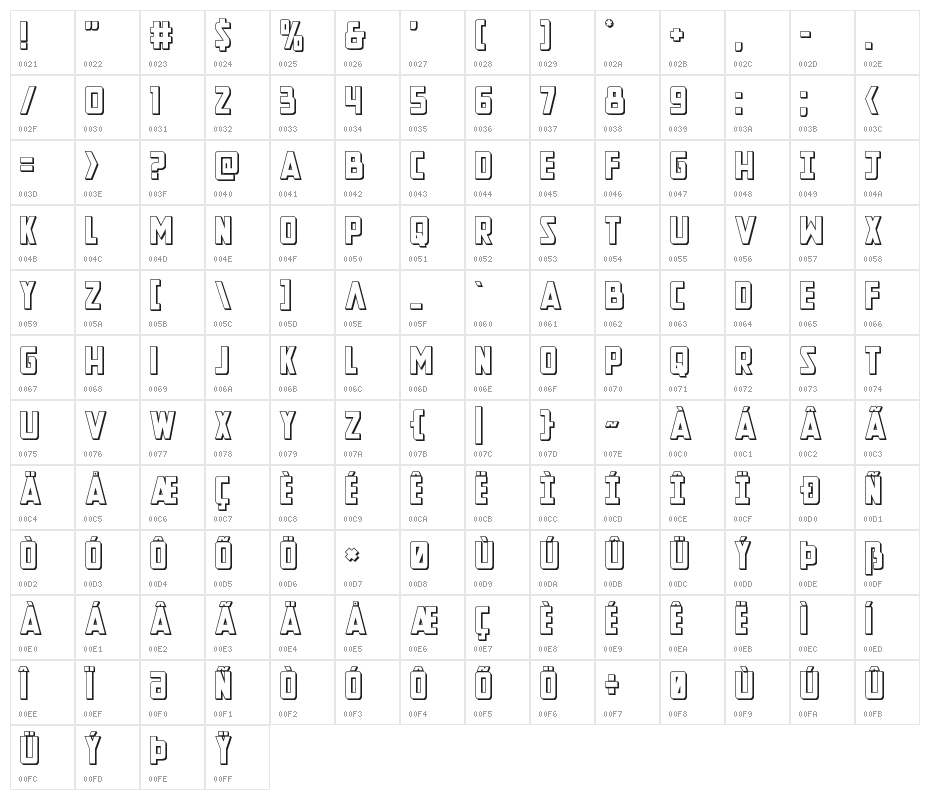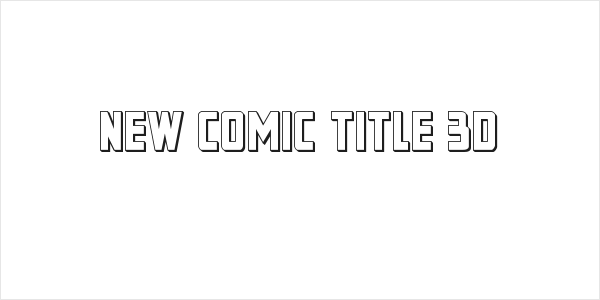
New Comic Title 3D Font
New Comic Title 3D Description
This font features a bold, three-dimensional design with a strong outline that gives each character a striking appearance. The uppercase letters are angular and geometric, creating a sense of strength and modernity. The numbers and special characters maintain this bold style, ensuring consistency across all glyphs. The font's design is reminiscent of comic book titles, with a playful yet assertive look that captures attention. Its clear and legible form makes it suitable for impactful headlines and titles.